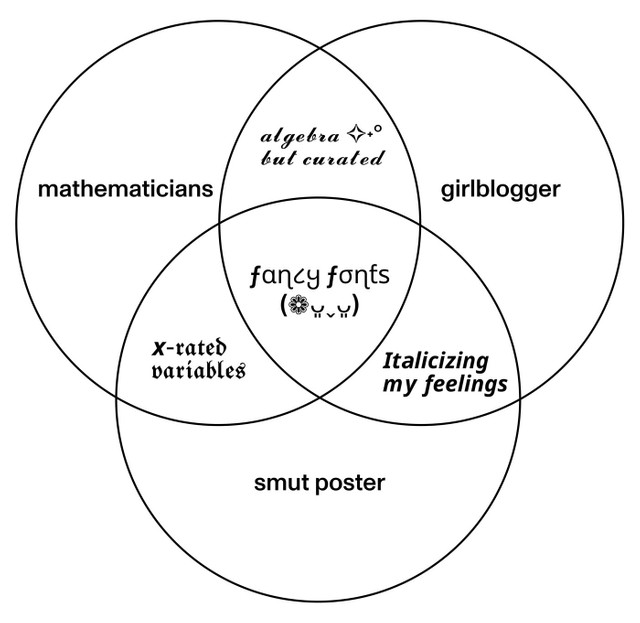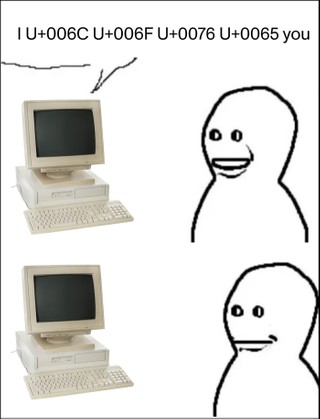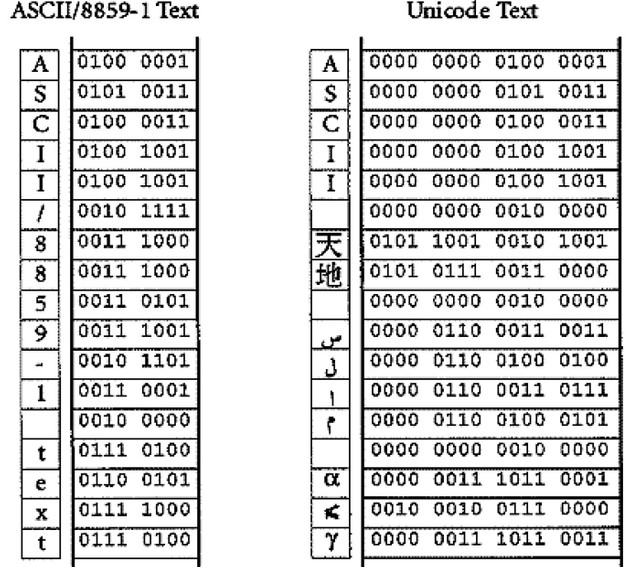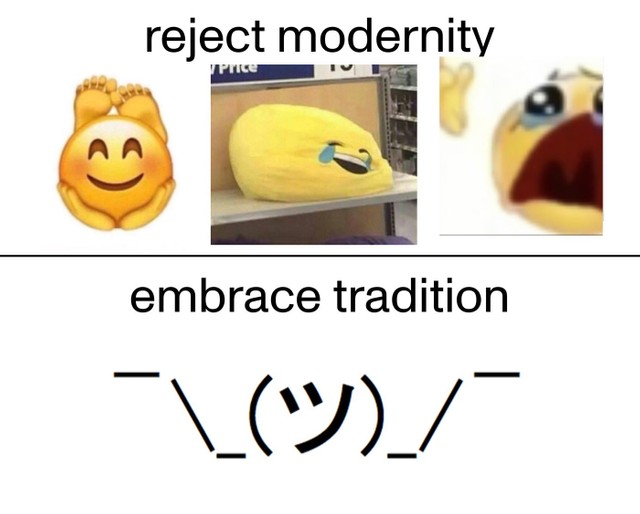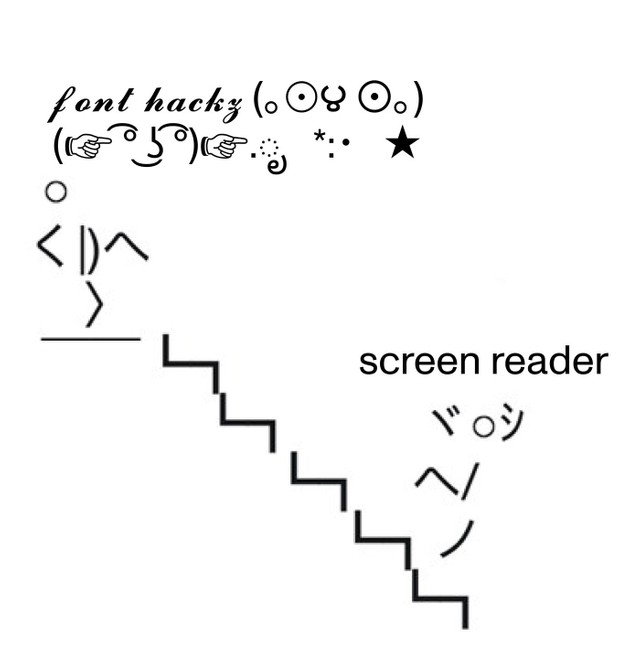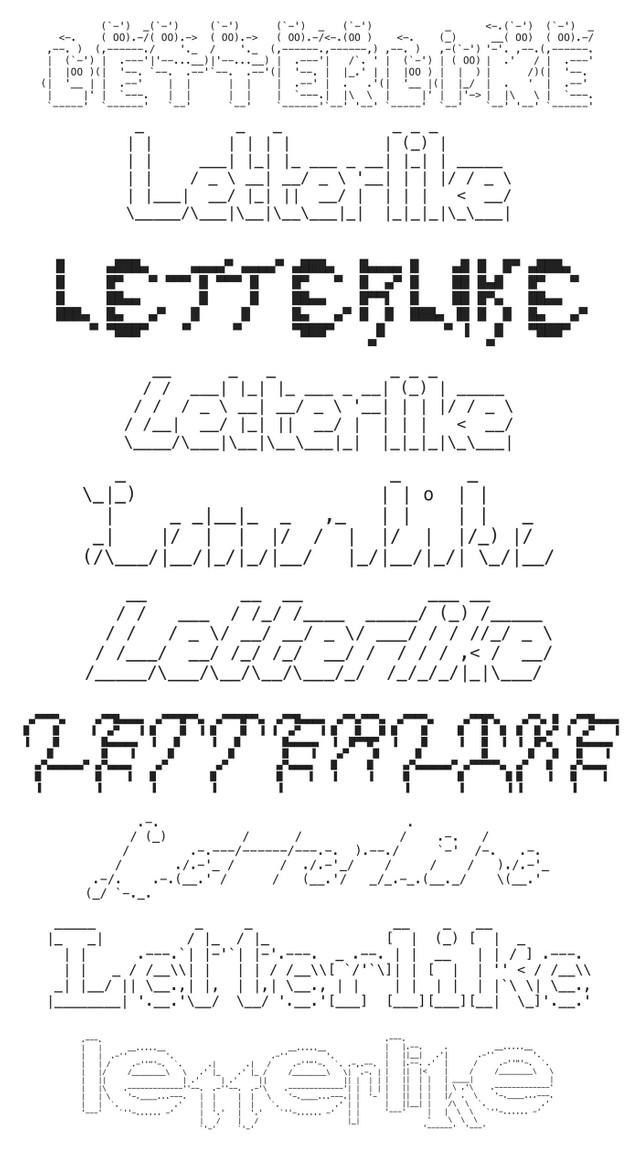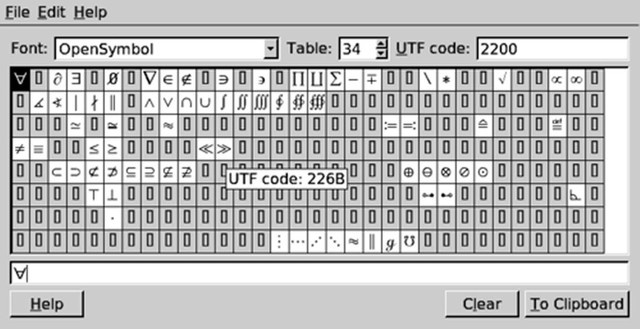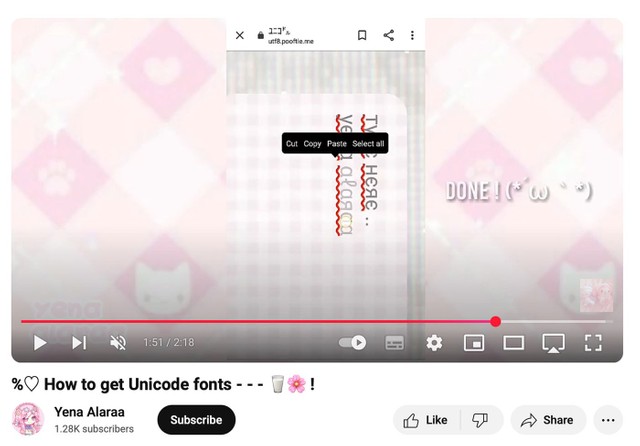
Font Hacks at the Periphery of the Internet —
And this time, Puerto Rico-based ★Michelle Santiago Cortés★ takes us on a journey from font hacks and their (still raw) Unicode origins to ASCII and 𝓰𝓲𝓻𝓵𝓫𝓵𝓸𝓰𝓰𝓮𝓻, and how these keep the early internet alive.
Letterlike
by Michelle Santiago Cortés
You know you’re getting closer to the warm, wet depths of the internet when the signs begin to wobble. When Instagram starts displaying text that looks like it’s been italicized, turned upside down or even written backwards. When a platform’s clean, proprietary font starts looking slanted, with curled edges; or thicker, with a stalkier base. If you’re drifting towards its peripheries, the diacritics will be the first signs. There, you’ll find the non-Latin alphabets, where Cyrillic, Japanese or Polish come into greater prominence, one character at a time. Meme pages, fan accounts, smut posters, and aesthetic bloggers are some of the primary agents of this kind of typographic chaos. They carry the torch of a once-ubiquitous internet trend – the use of font hacks – by continuing to make their profiles cuter, sparklier, spookier or otherwise more customized despite (and increasingly, in pursuit of) the wobbly results.
Creators like @the.ontological.turnt or @everyoneisagirl, and even artists like Maya Man, keep it modest with standalone stars and asterisks that look like something pulled from behind the symbols section of the emoji keyboard – pixelated or out of line with the main text. On the other hand, medieval mysticism meme account @marymagdalenestan opted for a more confrontational approach, its display name written in thorny Gothic lettering that says: “Christendom hates her.” Font hacks are also at work wherever you see someone spell their name using Korean or Arabic characters on a platform set to English. And they’re especially noticeable when a user combines multiple font hacks into mishmashes like the now-ubiquitous sparkle bow: ⋆୨୧˚. Collectively, font hacks signal nostalgia and reference the early internet, harking back to a time when such characters and typographic quirks were par for the course of customized internet profile.
If you’ve ever tried to reverse-engineer these effects, you’ve probably run into browser-based generators that let you either design your own font or transform a text of your choice into a stylish cursive version you can copy and paste into your profile or posts. On YouTube, you can learn how to add “Unicode fonts” to your smartphone's keyboard, as we once did with emojis, from a video bookended by fan edits of Aespa’s Giselle, the Japanese member of SM Entertainment’s most popular idol girl groups. While they are most often identified as “fancy fonts” or “font hacks,” these aren’t fonts at all. And they’re not “hacks” either, as they don’t require the circumvention of any proprietary system or digital lock. In fact, the possibility and availability of such “fancy fonts” would not be possible without one of the internet’s greatest institutions: the Unicode Consortium.
Founded in 1988, Unicode facilitates computer interoperability across languages by developing a standardized system that gives each character its unique code points. If that doesn’t mean anything to you now, consider the following: Where you see the pictogram of a sealed envelope on your screen, your computer “sees” instructions to open your inbox; where you see a paper plane, your email’s hosting service “sees” a command to send mail. Where you see sentences, words and letters, a computer “sees” the string of numbers (code points) that put them there. For most of the 20th century, computers only “spoke” English (and they mostly still do). The American Standard Code for Information Interchange (ASCII) was the lingua franca of computation, but it only accounts for 128 total characters including: 31 commands, all 10 digits, a handful of punctuation marks, some mathematical symbols, and the 26 letters of the English alphabet in both lower and upper case. The standard assigns each character a code point from 0 to 127, and each character could then be translated into 7-bit strings of binary digits using a hexadecimal table to determine the value – 0 or 1 – of each bit. ASCII was useful and successful because it was economical with storage, which meant it was cheap and fast. But it wasn’t scaleable and my mother’s family wouldn’t be able to spell its last name (Cortés) with it.
Even though ASCII could rely on British and American hegemonic power to impose itself on the world of computation and, increasingly, computer usage, Unicode has and continues to make it possible for other languages to get a slice of the pie. The consortium created a standardization system that assigns code points to all those “special characters,” like diacritics, non-Latin scripts, dingbats, and increasingly, emojis. Unicode managed to create a standard that was backwards compatible with ASCII and is also able to theoretically accommodate just over 1.1 million characters. While it's barely cracked through 300,000 as of 2024, it is already the premier character encoding standard of the internet.
But, Unicode’s website clearly states that “the Unicode Standard does not address the representation of rich text,” meaning, text with added instructions about style or color is none of Unicode’s business. What is sometimes called a “Unicode font” is technically any computer font whose glyphs are assigned code points according to UTF-8. But, sometimes style is substance, and the consortium assigns code points to specific transformations – some instances of italics or bold – that alter a glyph’s meaning enough to be considered an other, separate glyph. If you were using a computer to write a paper on the the Pythagorean theorem (𝒶2 + 𝒷2 = 𝒸2), it helps to be able to distinguish between a regular “a” and the variable 𝒶.
What we call “fancy font” are more a DIY workaround that mines all 300,000 standardized characters for graphemes and glyphs that can be repurposed into upside down, double-struck, or bolded Latin letters. They ignore what the computer sees by prioritizing what we see. The cursive script beloved by 𝓰𝓲𝓻𝓵𝓫𝓵𝓸𝓰𝓰𝓮𝓻𝓼 is technically compiled from a list of script symbols “to be used for mathematical variables where style variations are important semantically.” Most of our favorite “fancy” characters are either “letterlike symbols” or “mathematical alphanumeric symbols.” If you were writing these characters with your hand or reading them with your eyes, you wouldn’t need standardized code to tell the difference between “a” and “𝒶.” But they are encoded distinctly because a computer (and a screen reader!) doesn’t know the difference.
In tracing the history of how that sexy Gothic lettering also known as 𝕱𝖗𝖆𝖐𝖙𝖚𝖗 was standardized by Unicode, I came across a 2013 discussion board where consortium members discussed the very possibility that “naive users” might “use them for text.” But font hack users are going out of their way to source these stylized characters, going as far as perverting a number of non-Latin alphabets for shapes that can be used as b’s or c’s. Naive they are not. And it’s a good thing for these small miracles of interoperability to be available to those who want to angle for a very specific kind of visibility, one that can fool computers and create its own audience.